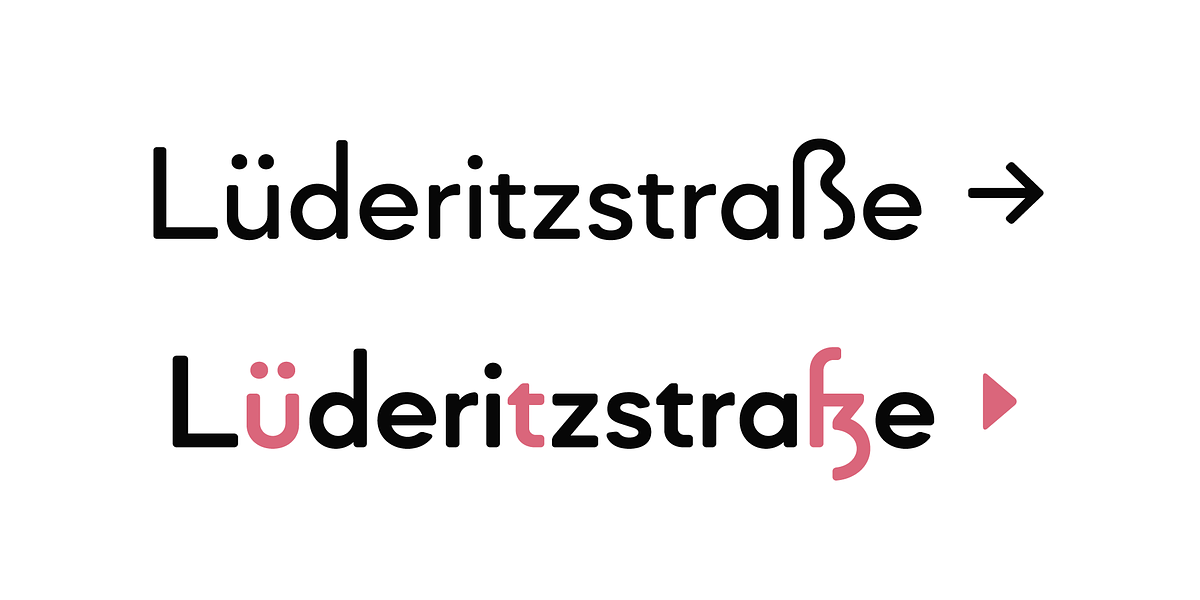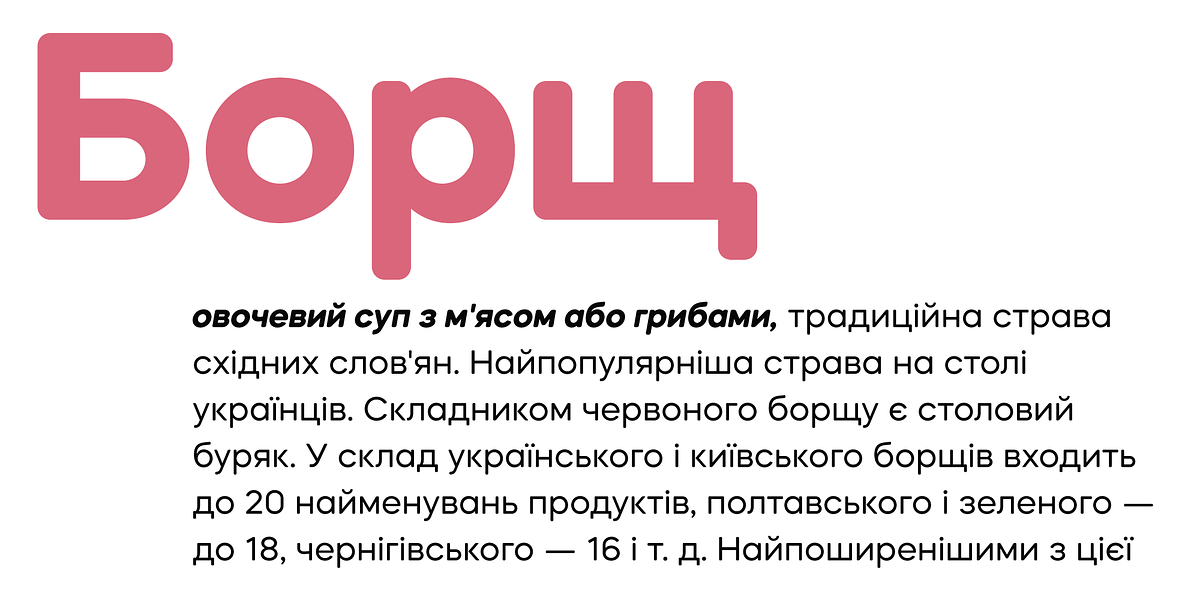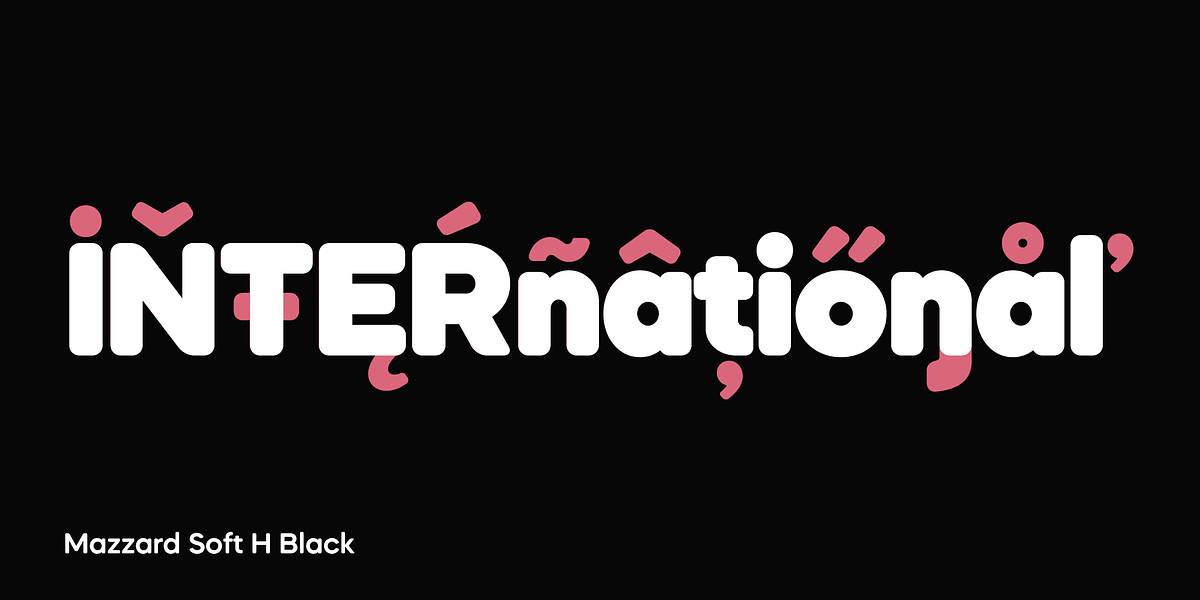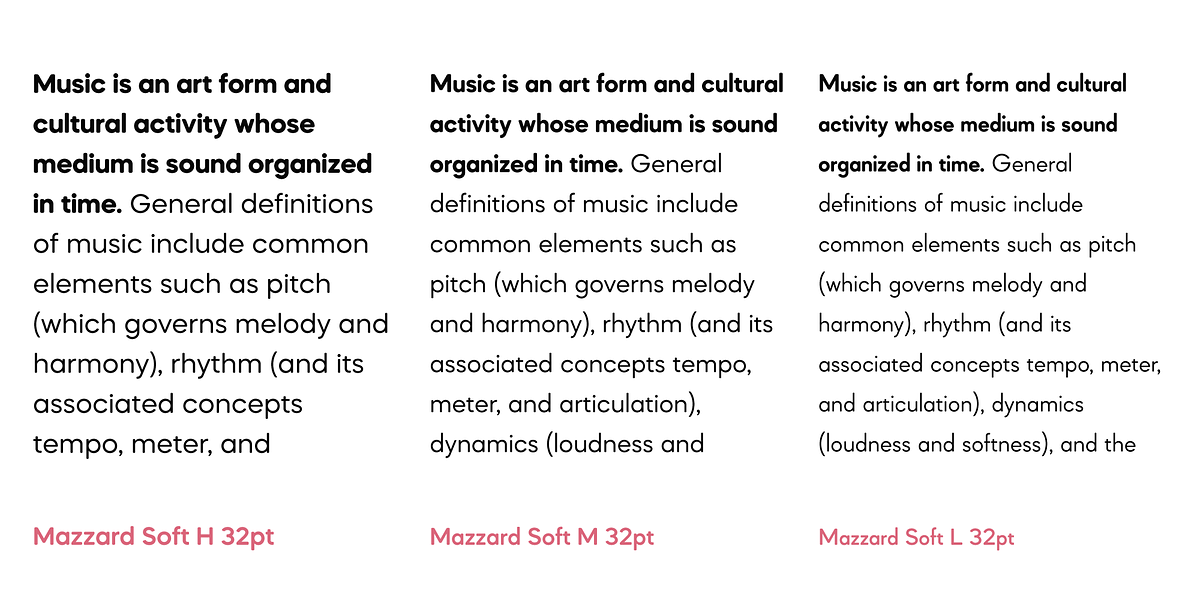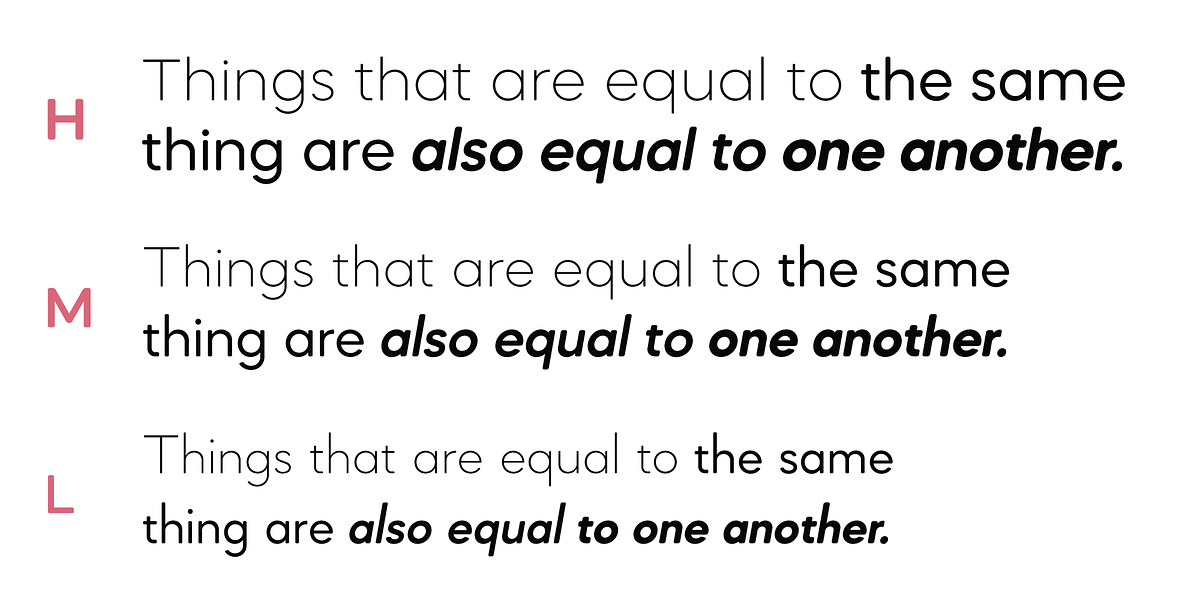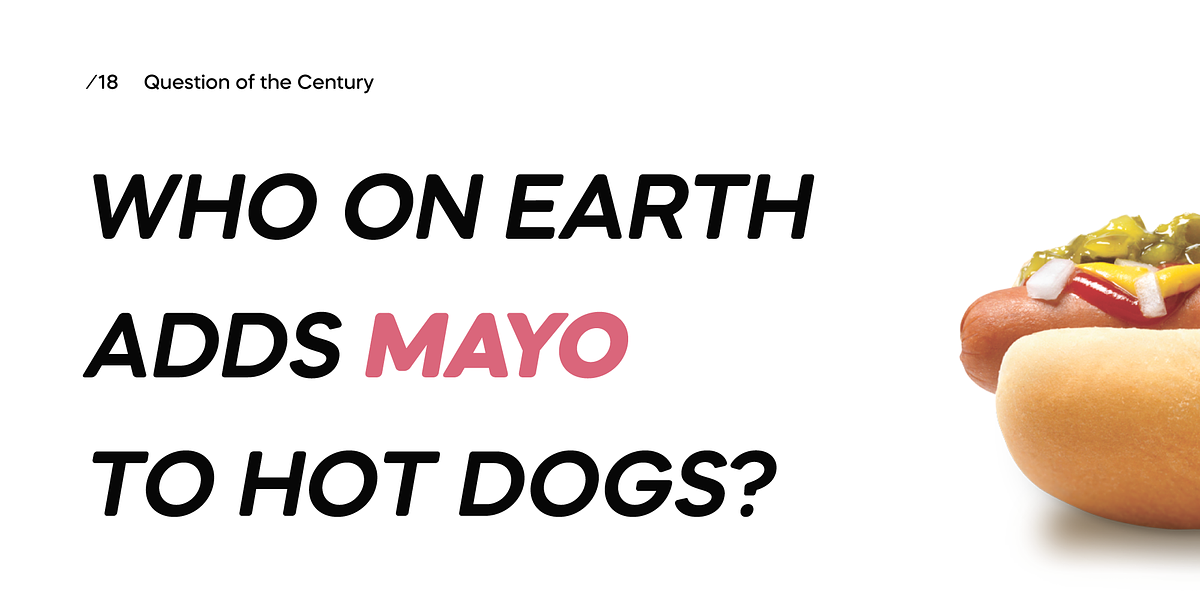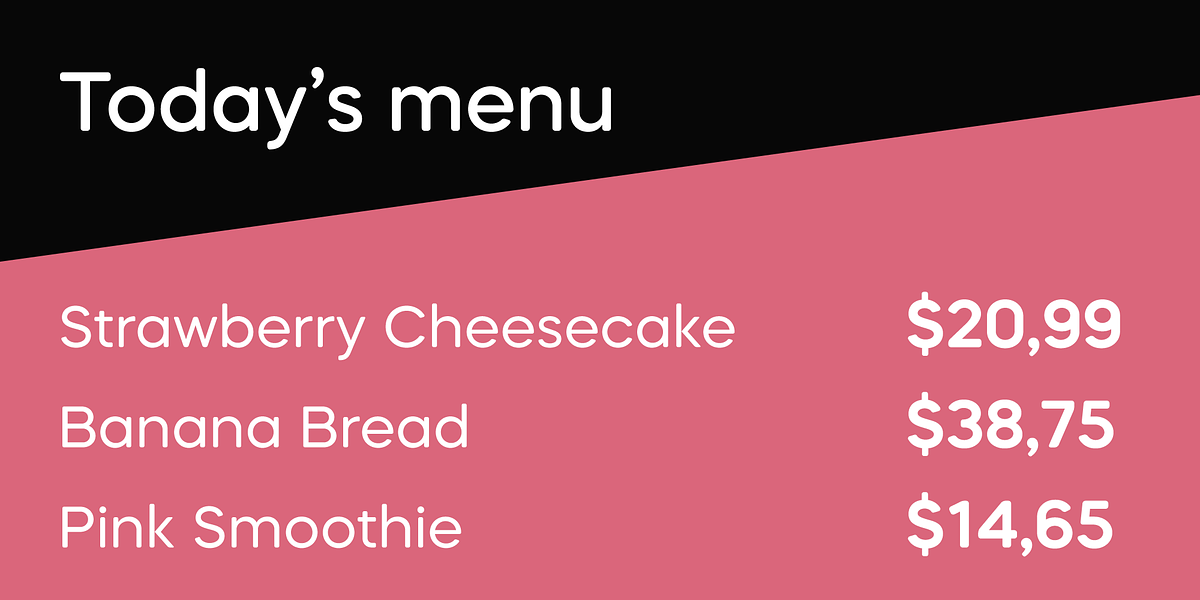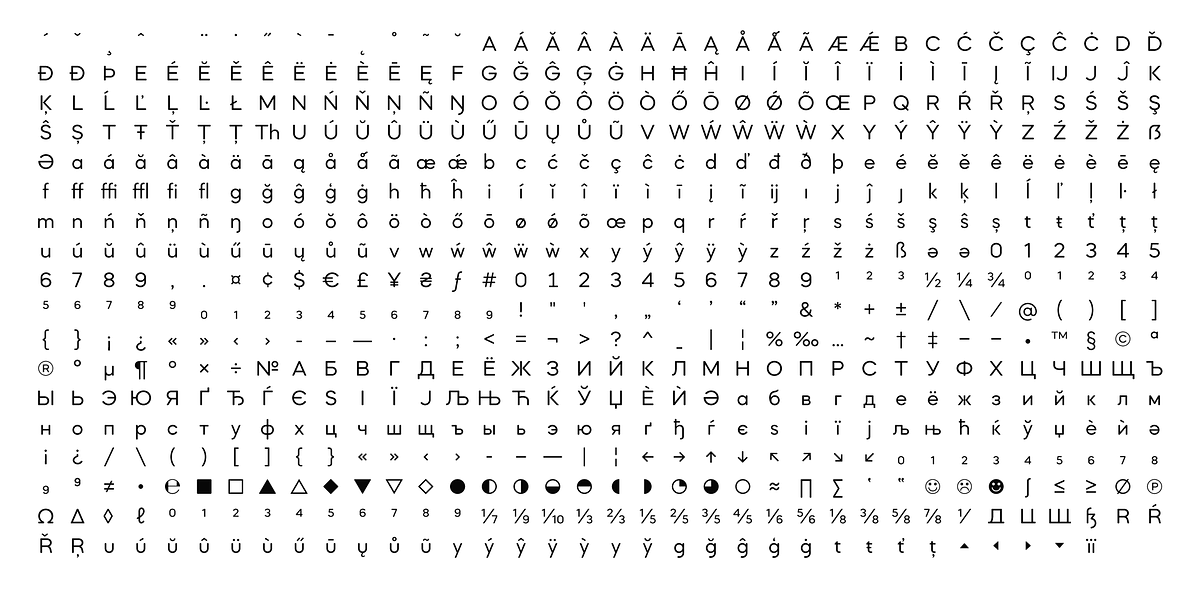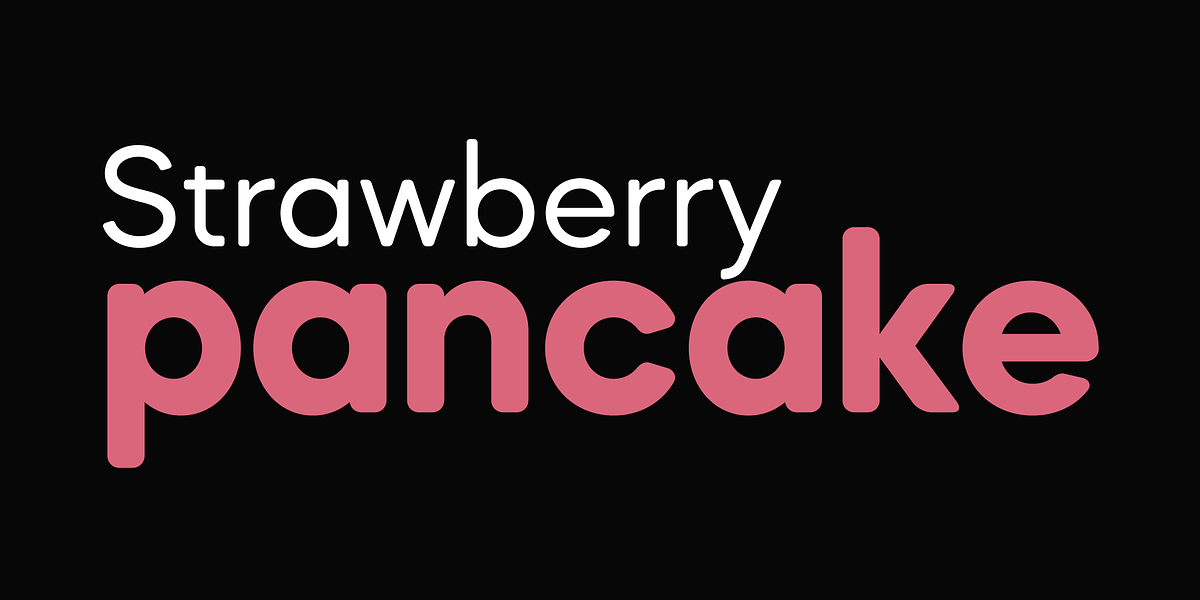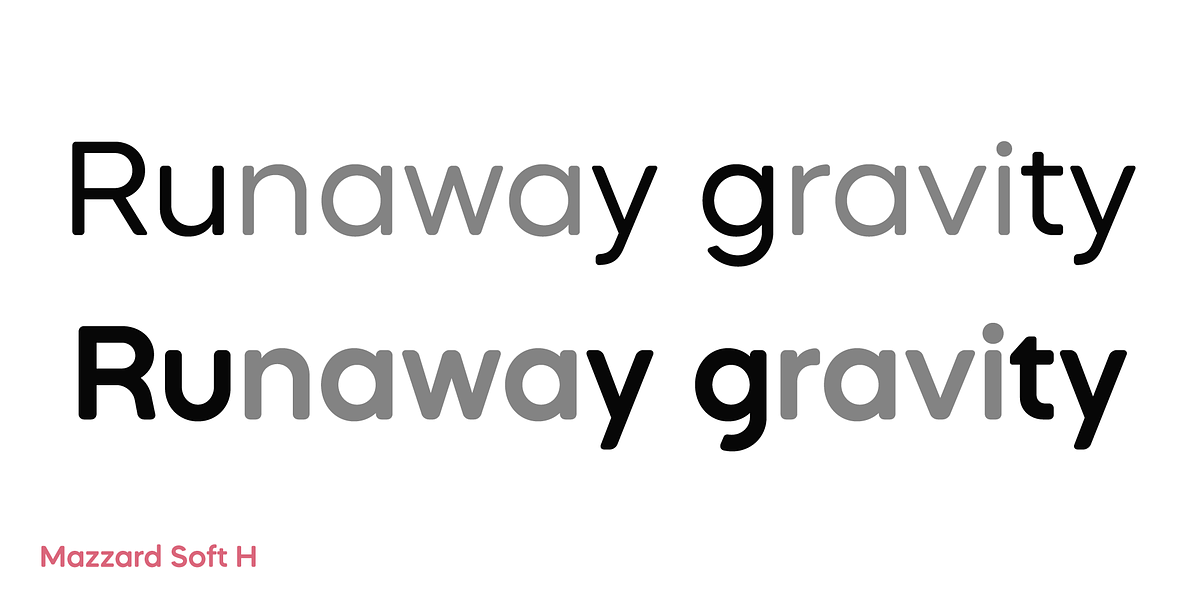
Mazzard Soft M
Mazzard Soft is a rounded variation of the Mazzard typeface family. It falls into the geometric sans-serif category and boasts a contemporary aesthetic. The font includes extensive language support, encompassing Cyrillic characters, and offers a diverse range of alternate glyphs for design flexibility.